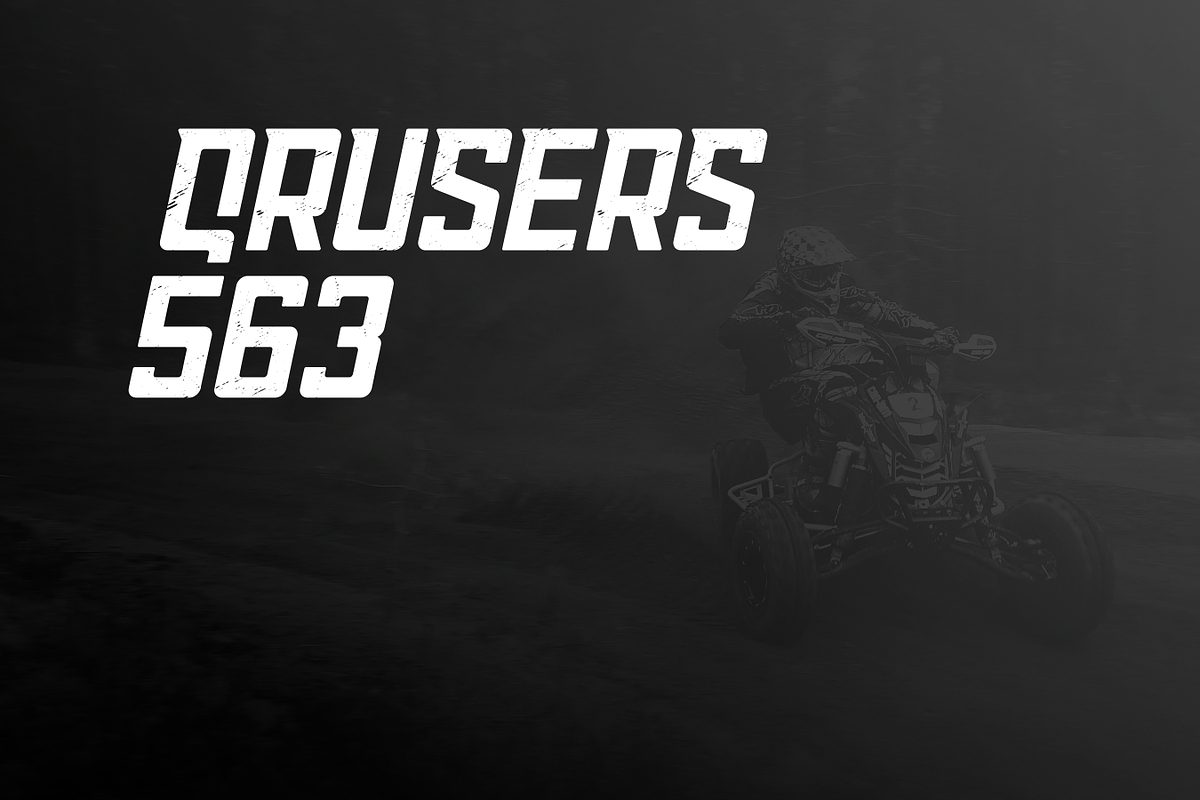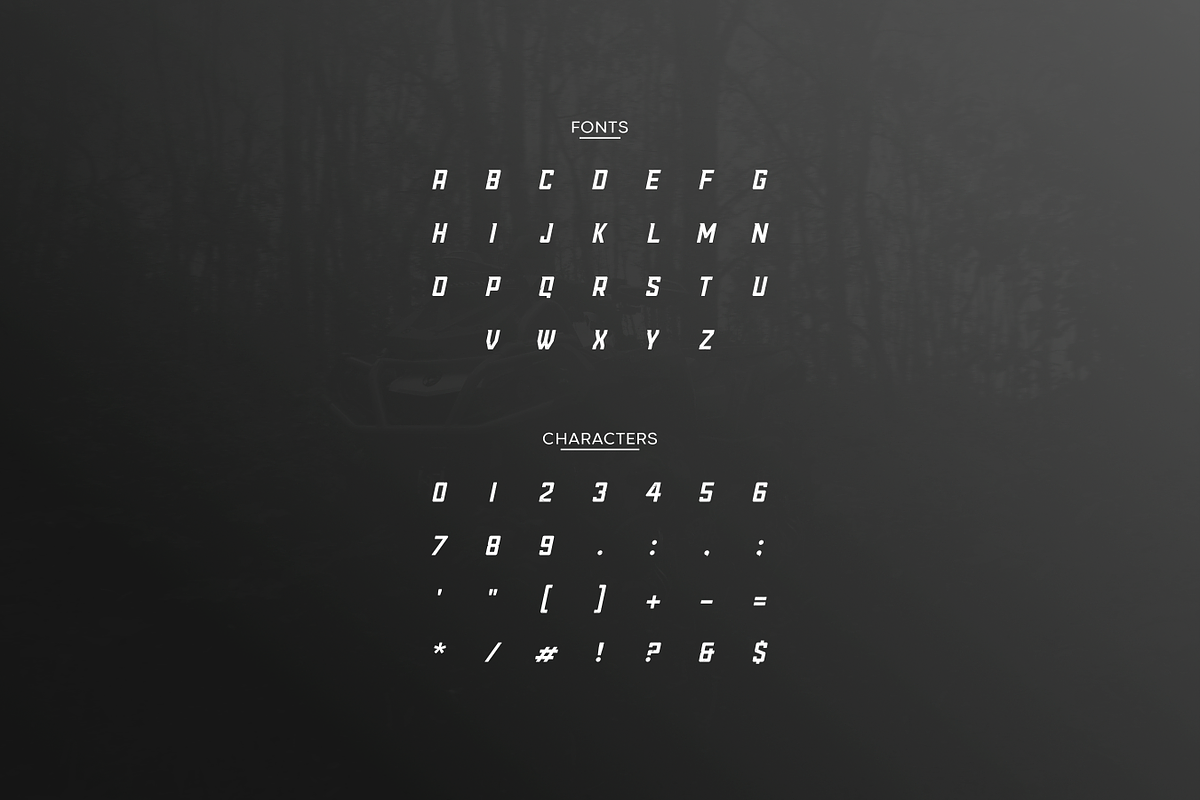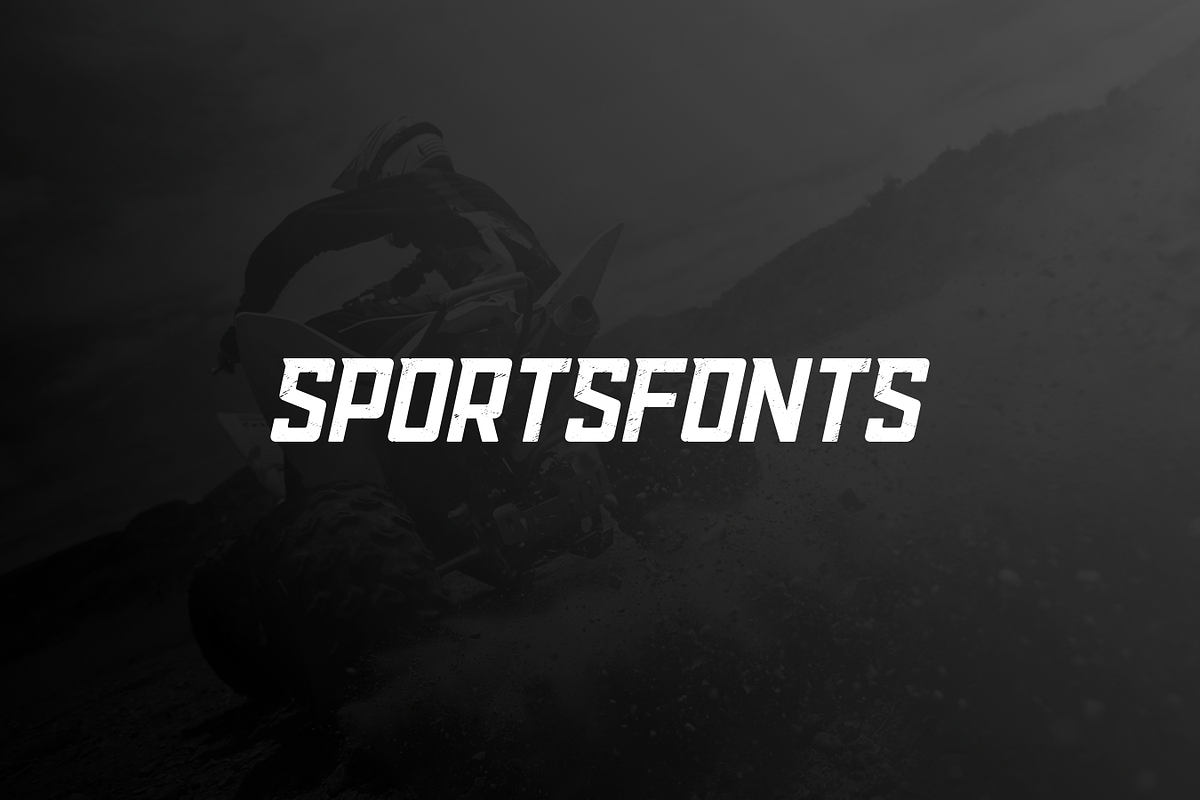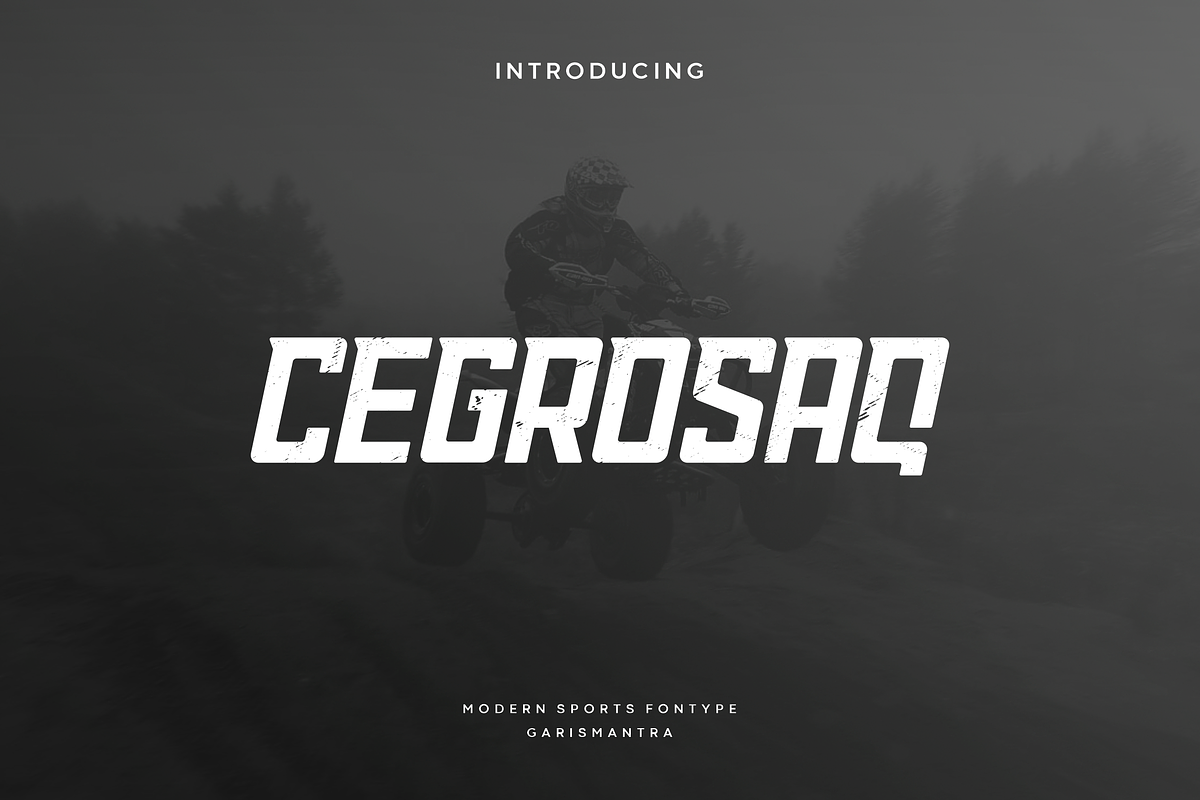
Cegrosaq
Cegrosaq sports font with high italic font, modern look, and dynamic slant. Ideal for fast car racing sports titles, logo, running matches, cycling, automotive game logos and other modern dynamic monograms or texts. Cegrosaq brings the feel of ink splattering at an angle, creating an effect of power and speed. Designed as a fast and dynamic font, but with a slightly different font design the added rough fill makes it a bit dirty but more masculine.